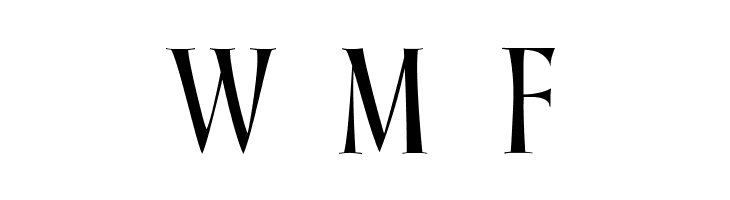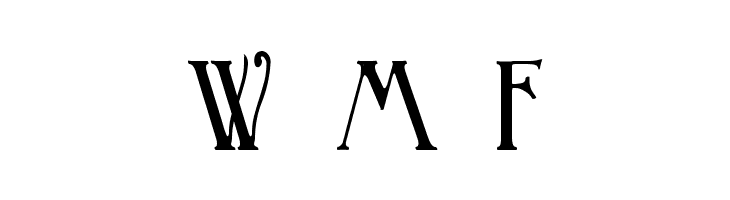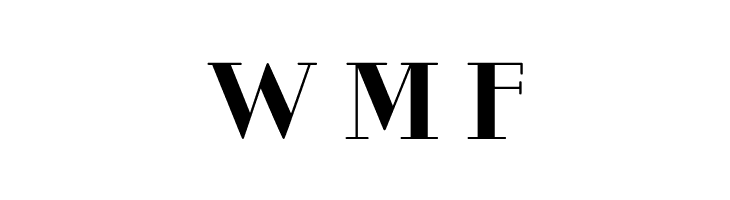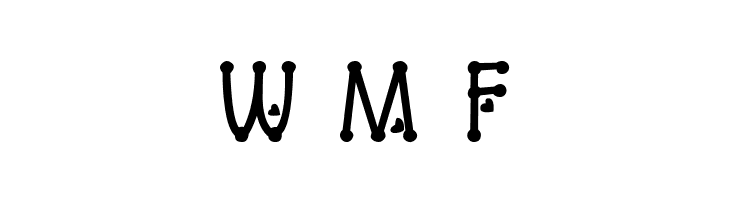
( Paul Lloyd Fonts )
A bold, elegant serif font with a modern twist and sharp, clean lines.
An ornate and decorative font with intricate curves and flourishes.
( Fonts by Steve Deffeyes - www.deffeyes.com )
An elegant serif font with swash elements and flowing curves.
A bold, elongated serif font with a modern and elegant style.
A sophisticated serif font with elegant, elongated serifs and decorative elements.
An elegant, high-contrast decorative font with intricate details.
An elegant and decorative font with intricate swirls and flowing letterforms.